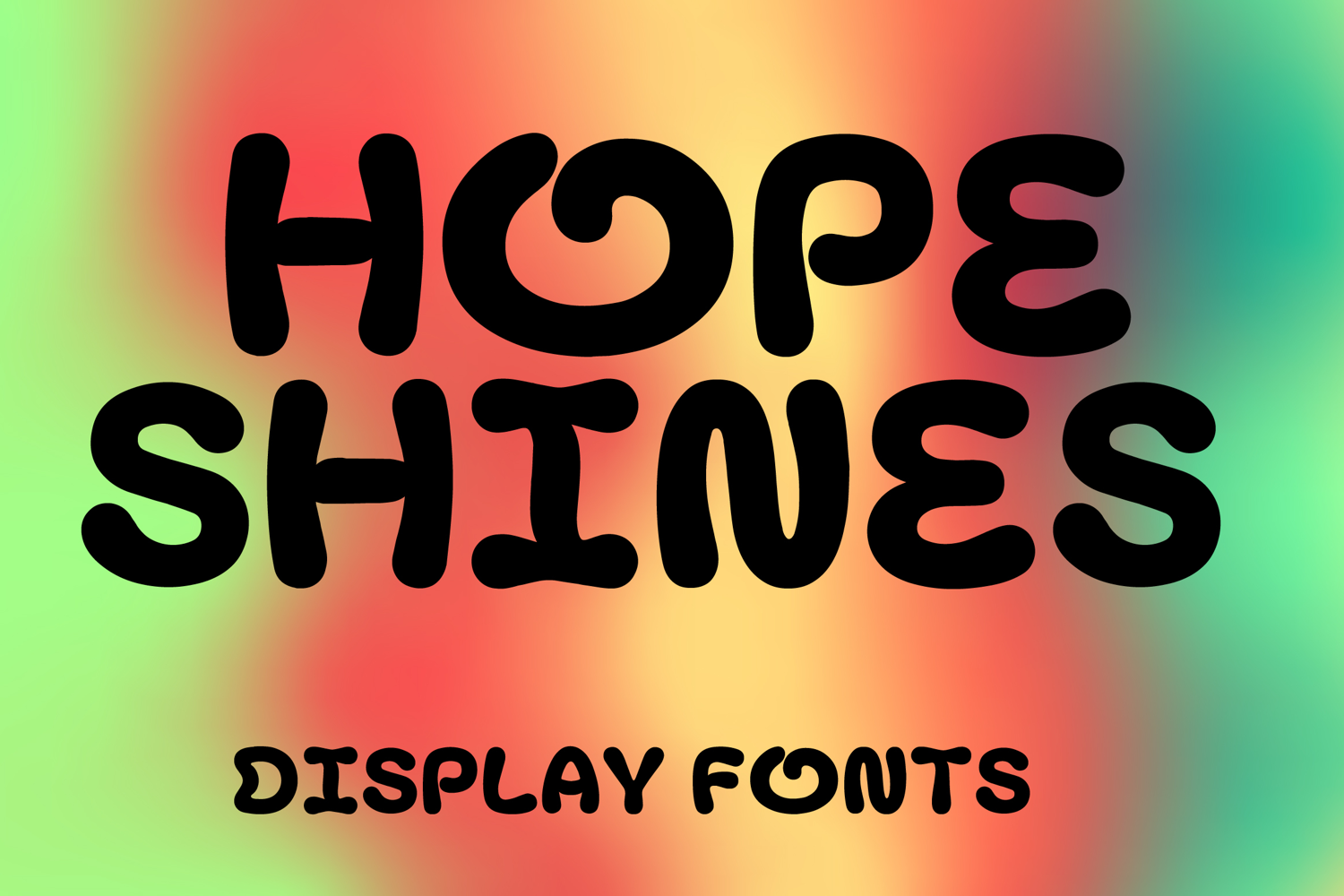
HOPE SHINES
HOPE SHINES is a bold playful display font with a soft retro-inspired style and cheerful handcrafted charm. Its uppercase letterforms feature thick rounded strokes, smooth curves, and bubbly organic shapes that create a warm, fun, and eye-catching look. Designed with uppercase letters A–Z and numbers 0–9, HOPE SHINES is perfect for branding, posters, packaging, logos, social media graphics, kids’ designs, and creative projects that need a joyful and memorable statement.
HOPE SHINES